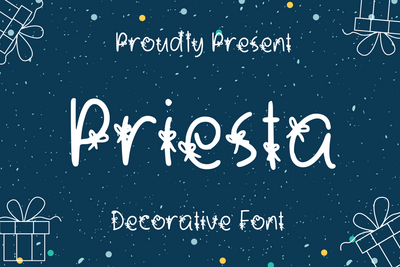
Priesta Font
Priesta is a stylish and cute decorative font. It features tape-themed characters that will add an incredibly joyful touch to your projects. Use this amazing font for a wide range of crafty ideas, from letterheads and titles, to stationery, and elevate your projects to the highest level!